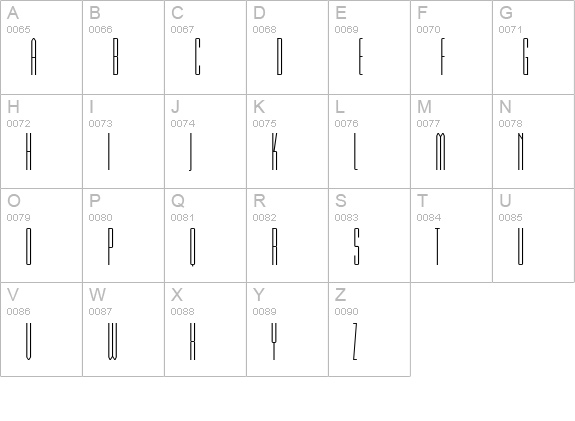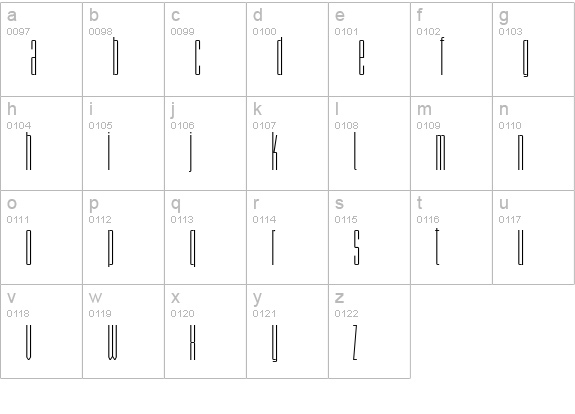
Briem Akademi Std Compressed Font Details
Briem Akademi Std Compressed is a distinctive, condensed-width variant in the Briem typeface family \xE2\x80\x94 well suited to design and typography projects.
Briem Akademi Std Compressed font is a sleek and modern typeface that exudes elegance and sophistication. Its compressed design makes it perfect for conveying a sense of professionalism and efficiency in various design projects. With its clean lines and sharp edges, this font is ideal for creating eye-catching headers, titles, and logos that demand attention. One of the best features of Briem Akademi Std Compressed font is that it is available for free download at FontsMarket.com. This means that you can easily access this high-quality font without having to spend a dime. Whether you are a graphic designer, a web developer, or a creative enthusiast looking to elevate your projects, this font is a must-have addition to your collection. With its versatility and timeless appeal, Briem Akademi Std Compressed font is sure to become a go-to choice for all your design needs. Download it today for free and start incorporating its stylish aesthetic into your projects to make a lasting impression.